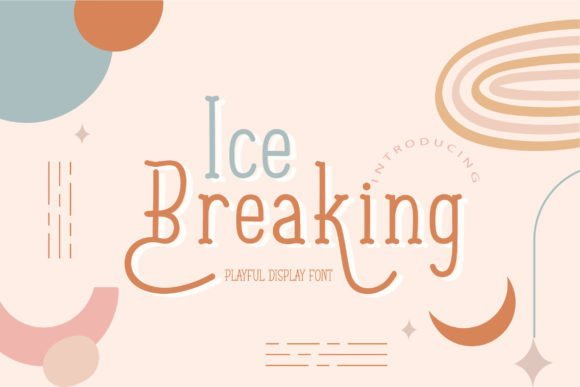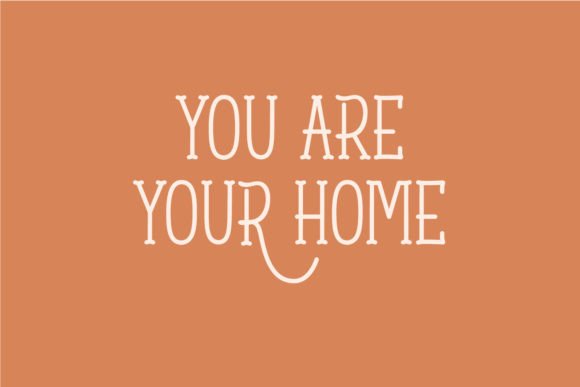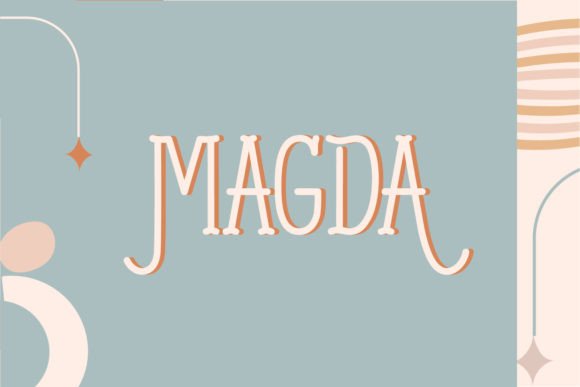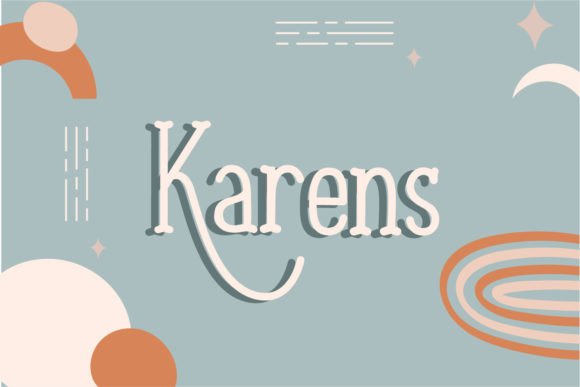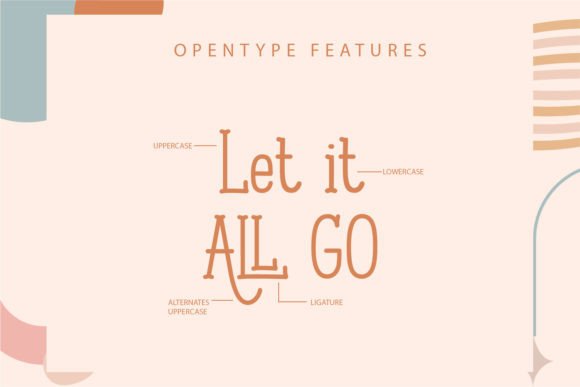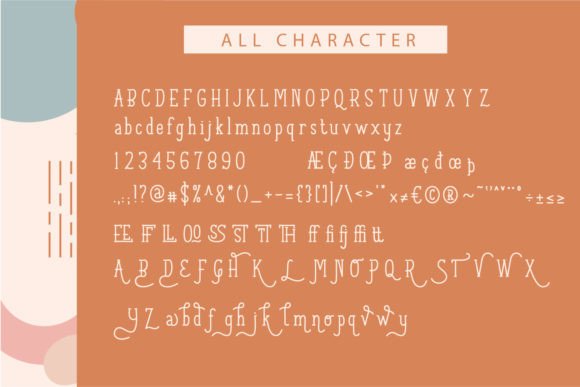
Unlock the Power of Creative Expression with the Ice Breaking Font
Have you ever stared at a blank canvas, struggling to find the perfect spark to ignite your creativity? You’re not alone. As designers, we’ve all been there – searching for that elusive idea that brings our projects to life. But what if I told you that the key to unlocking your full creative potential lies in the subtle yet powerful world of typography?
Enter the Ice Breaking Font, a modern and stylish serif display font that’s designed to break the ice and inspire your most innovative ideas. With its beautiful and well-balanced characters, this font is the perfect addition to any design project. And with its PUA encoding, you’ll have access to all the glyphs and ligatures you need to take your designs to the next level.
Ice Breaking Font Key Features
- Unique Character Set: The Ice Breaking Font features a unique set of characters designed to convey a sense of playfulness and creativity, making it perfect for titles, headings, and other display text.
- Customization Options: The Ice Breaking Font offers a range of customization options, including font color, size, and style, allowing designers to tailor the font to their specific needs.
- Scalability: The font is designed to be highly scalable, ensuring that it remains legible and visually appealing even at very large or very small sizes.
Ice Breaking Font Review
Overall, I think the “Ice Breaking Font” is an interesting choice, but it’s not without its quirks. Here’s what I think works well:
- ✨ Unique and modern aesthetic that could work well for digital and print designs.
- ✨ Great for creating a sense of movement and fluidity, thanks to its dynamic letterforms.
- ✨ Supports a wide range of languages, making it a versatile choice for global projects.
However, I do have some concerns:
- ⚠️ Limited legibility in smaller font sizes, which could make it challenging to read in certain contexts.
- ⚠️ May not be the best choice for body text due to its experimental feel.
- ⚠️ Some characters may require manual tweaking to achieve the desired look, which could be time-consuming.
Overall, I’d say the “Ice Breaking Font” is a great choice for designers looking to add some visual interest to their projects, but it’s not a one-size-fits-all solution. Use it sparingly, and be mindful of its limitations.
Getting the Most Out of Ice Breaking Font
To get the most out of the Ice Breaking Font, try using it in bold or italic styles to add emphasis to your text.
Experiment with different font sizes and colors to create visually appealing combinations.
Use the Ice Breaking Font to create eye-catching headlines or to add a touch of personality to your designs.
The Ice Breaking Font is perfect for:
Creating attention-grabbing headlines and titles.
Adding a touch of personality to your designs.
Creating visually appealing social media graphics.